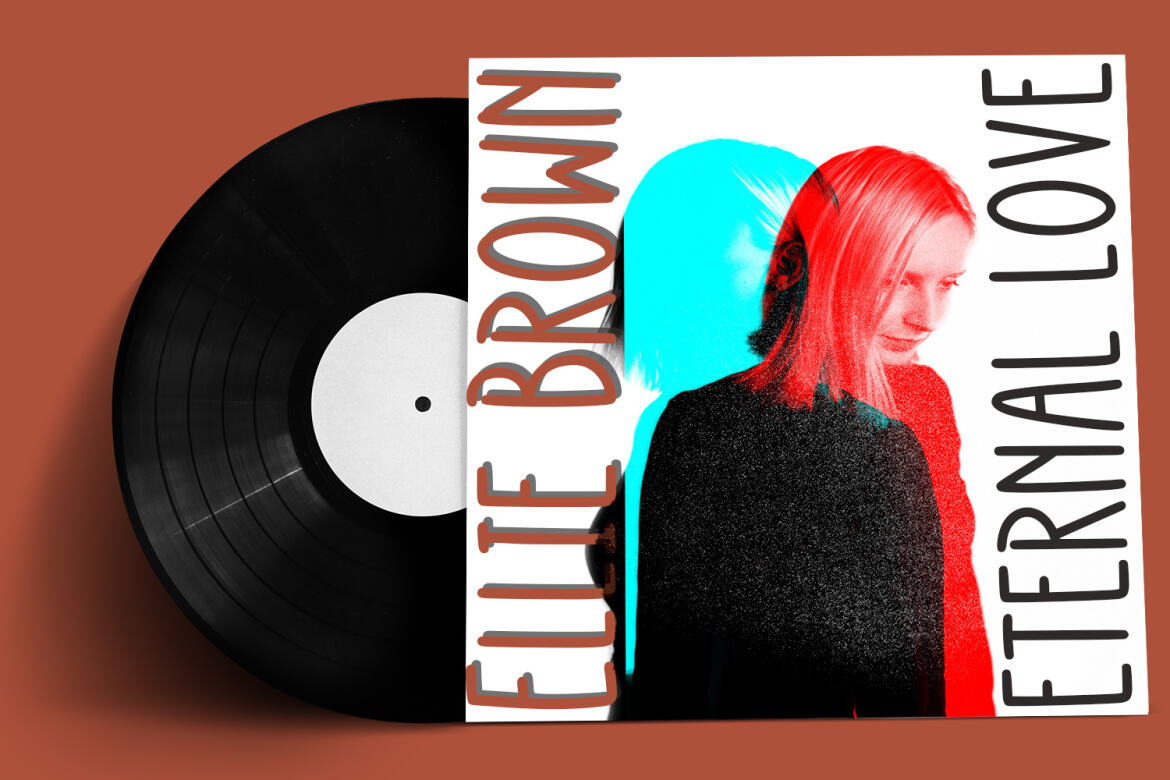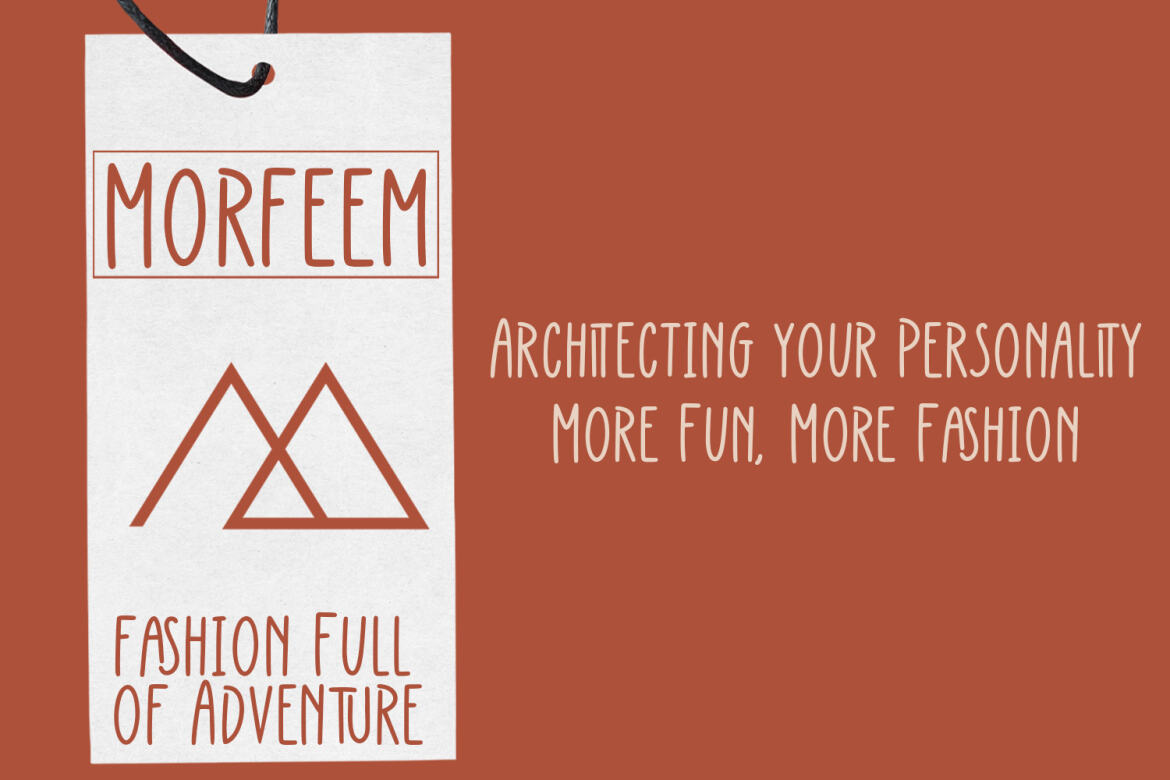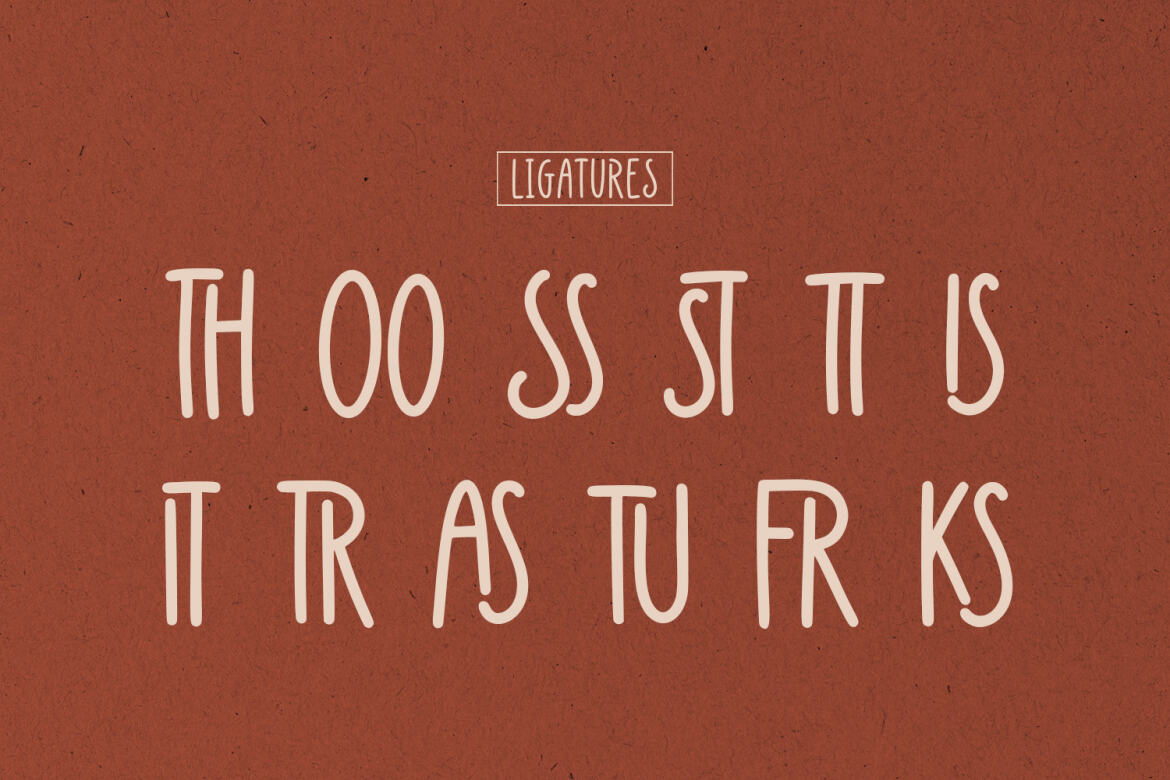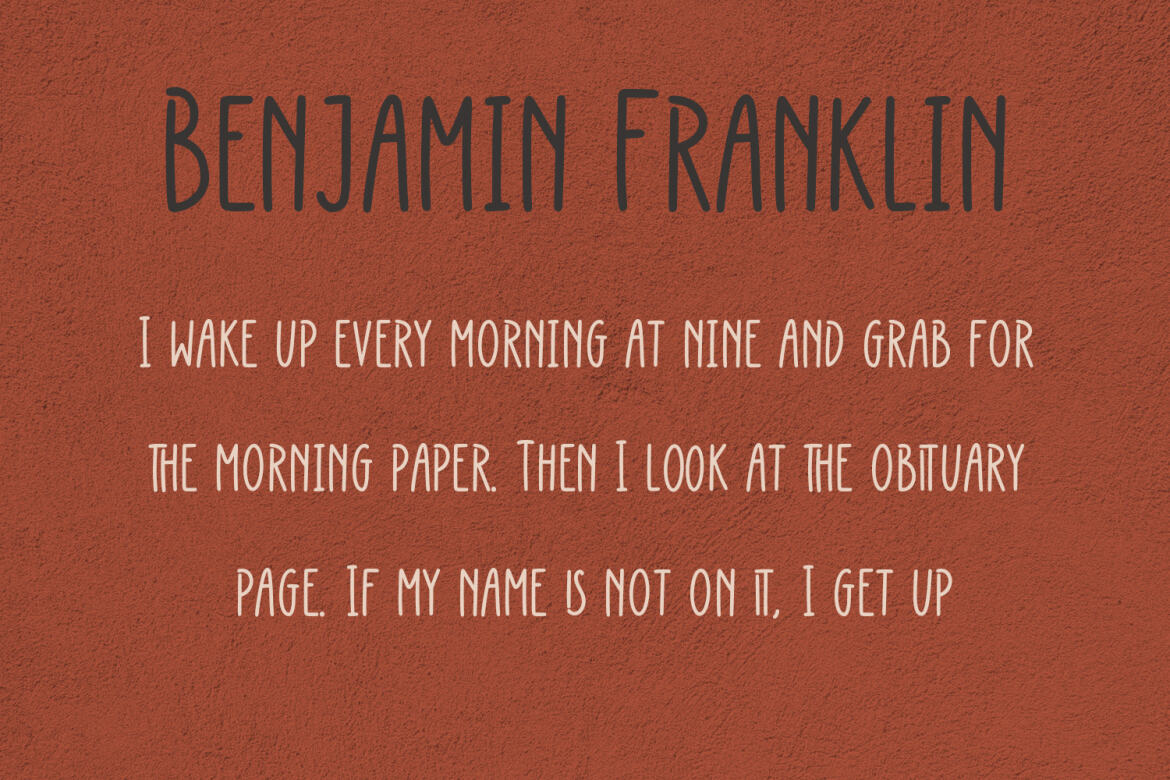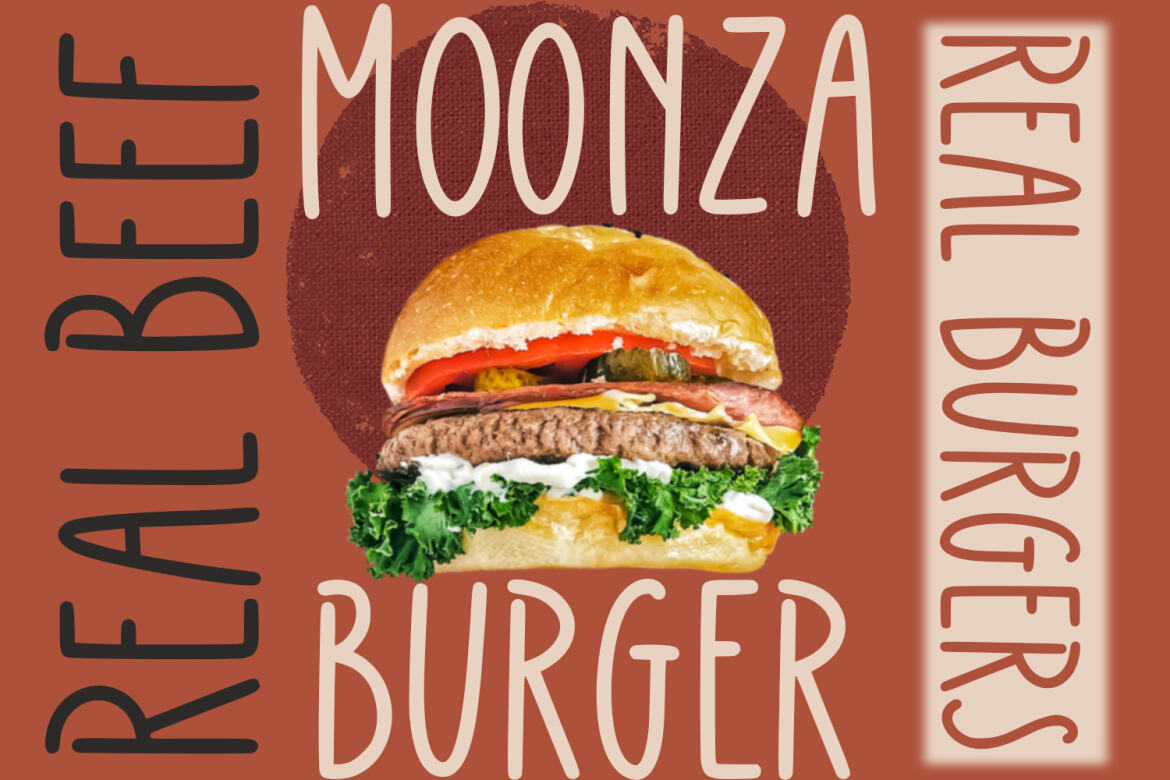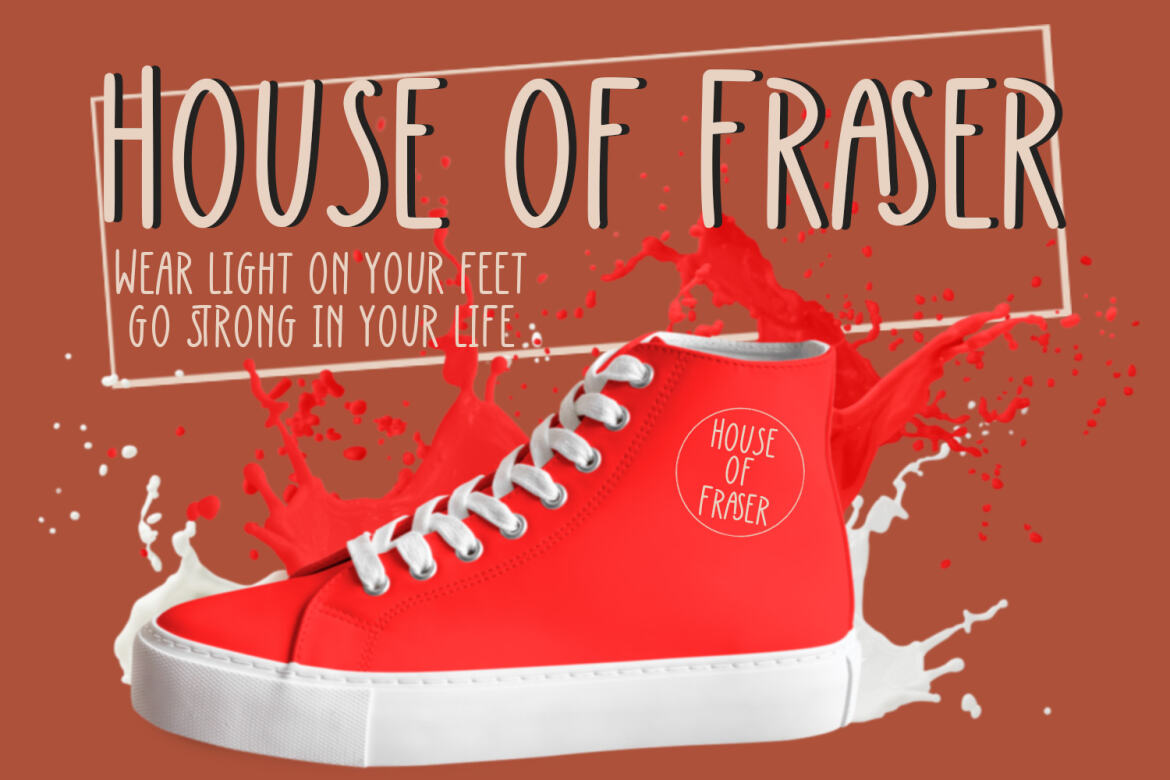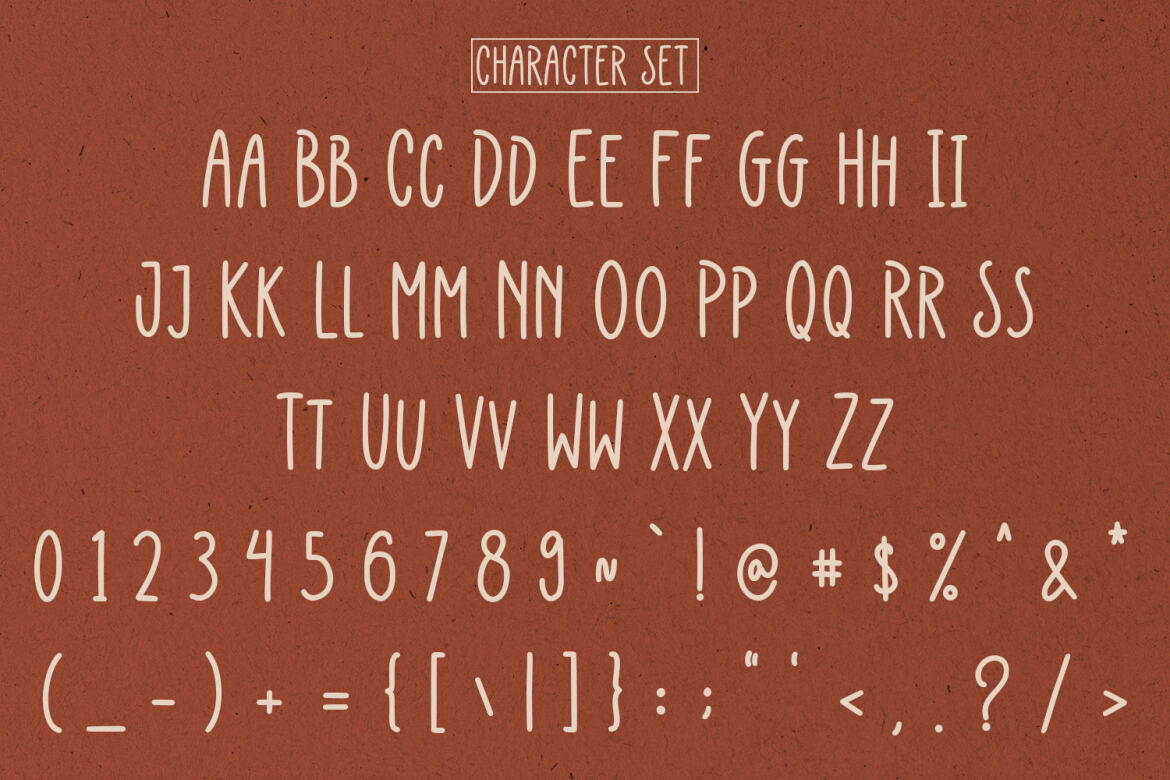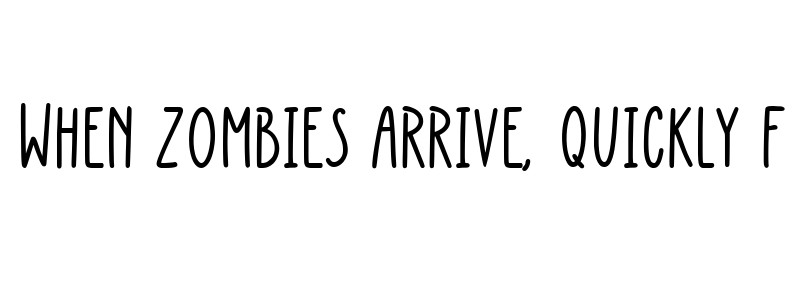
Fraksen FREE Handwritten Sans Font
Fraksen
Fraksen is a handwritten sans display font. With light consist stroke, fun character with a bit of ligatures and alternates. To give you an extra creative work. Fraksen font support multilingual more than 100+ language. This font is good for logo design, Social media, Movie Titles, Books Titles, a short text even a long text letter and good for your secondary text font with sans or serif. Make a stunning work with Fraksen font.